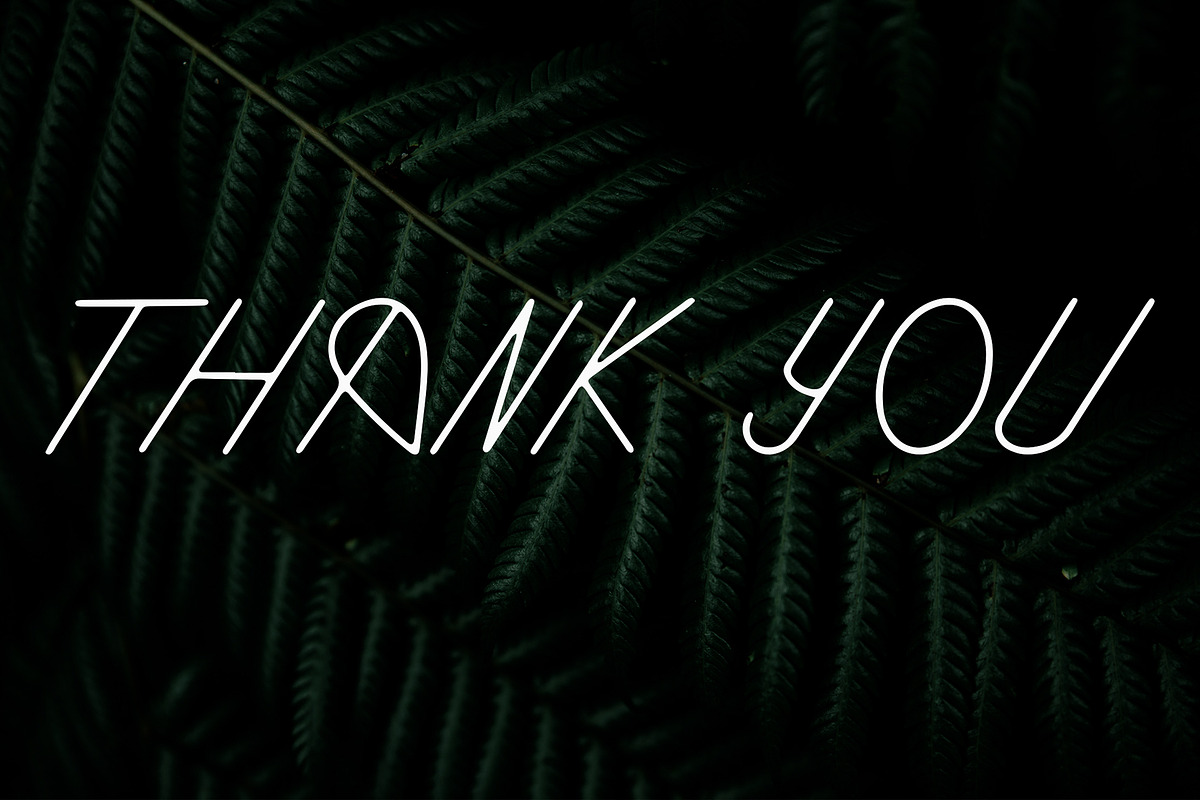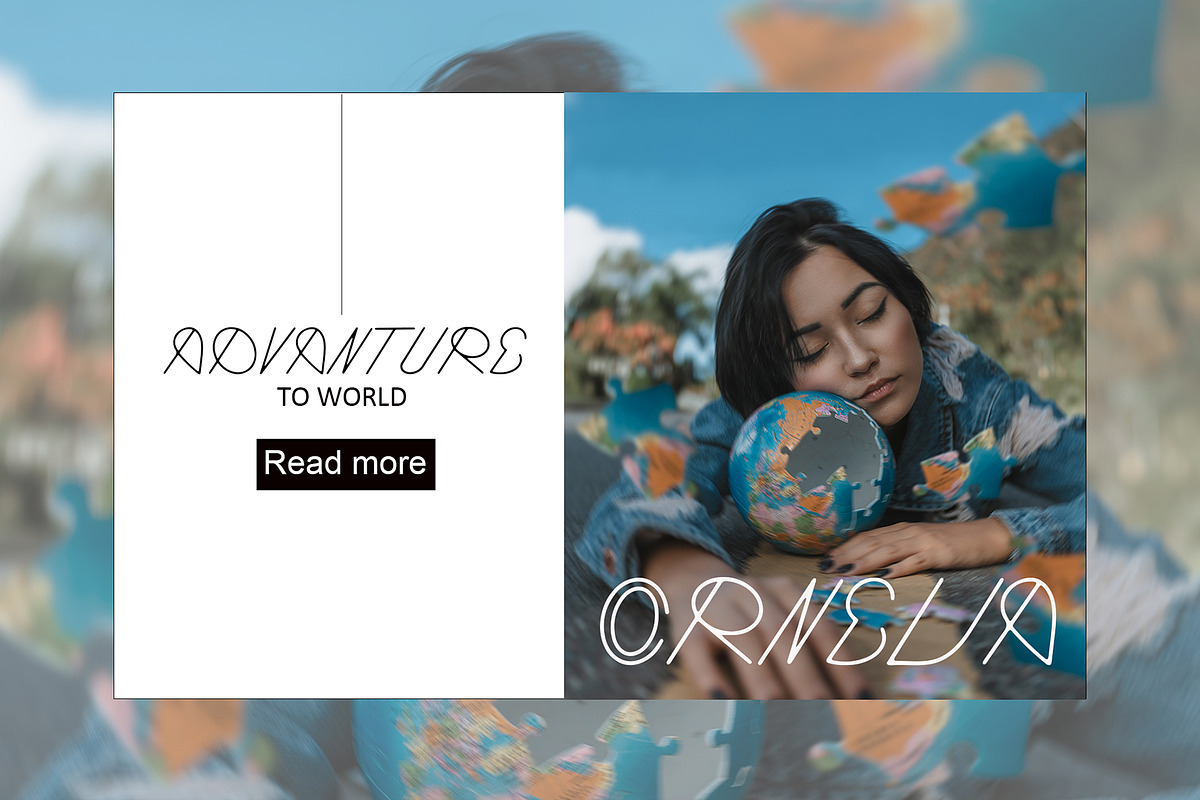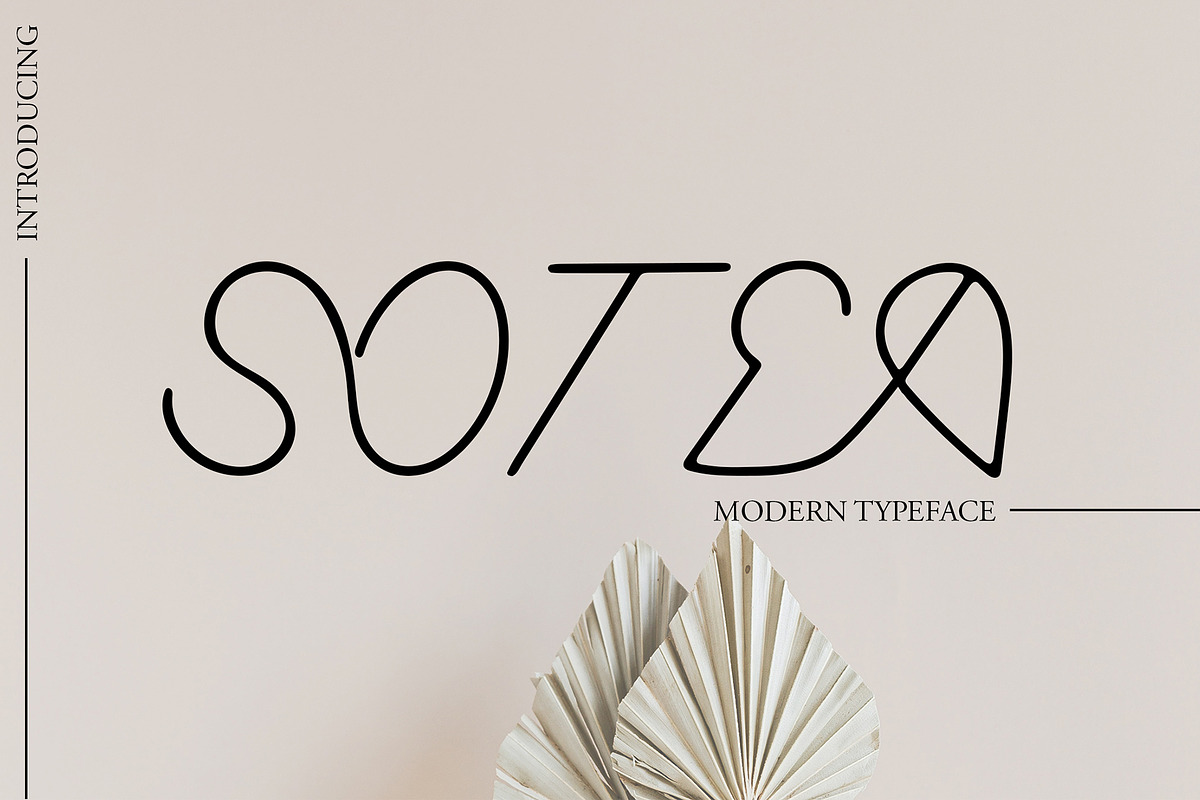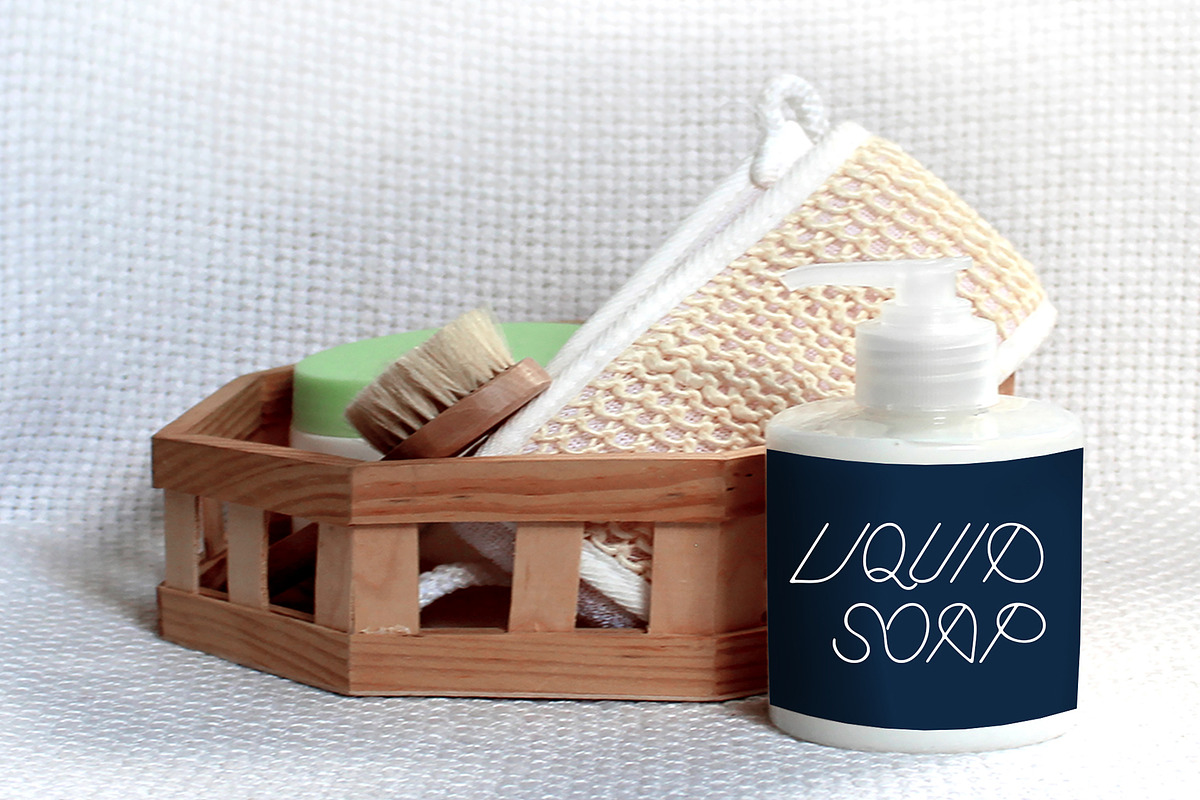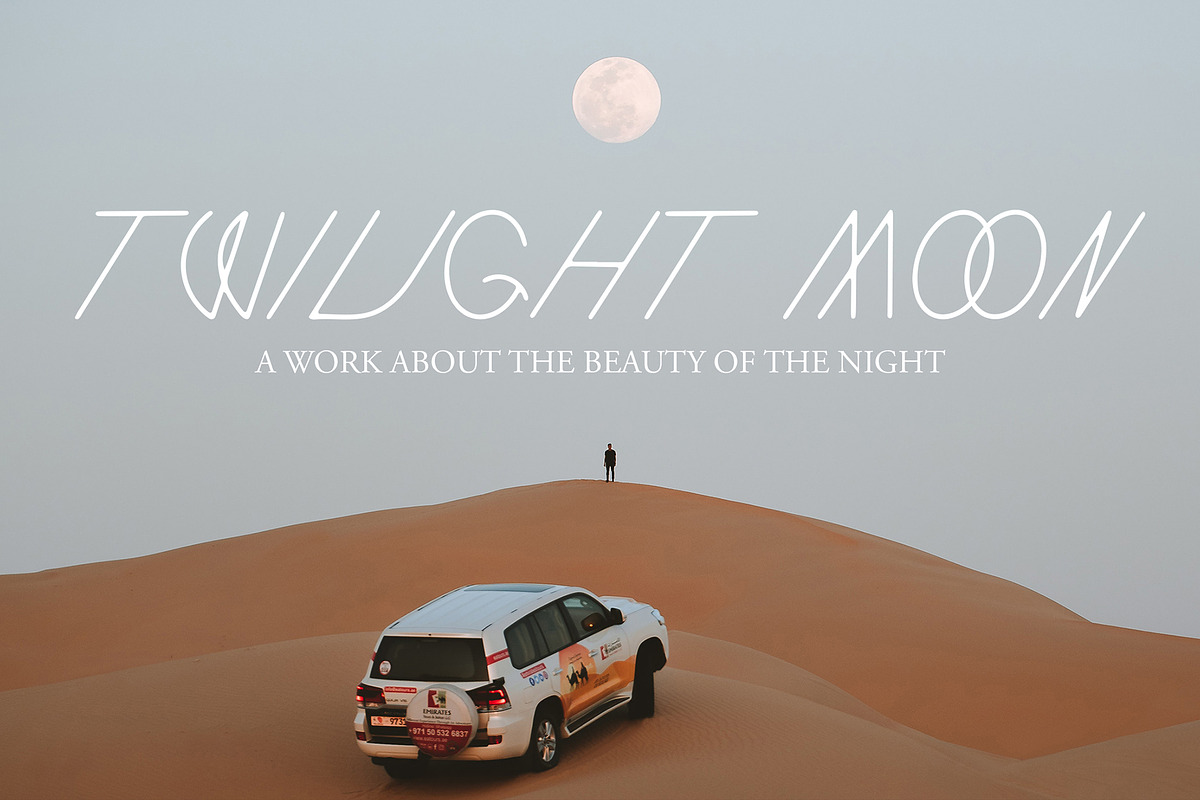
Sotea
Sotea is a minimal and thin lettered sans serif font. It can easily be matched to an incredibly large set of projects, so add it to your creative ideas and notice how it makes them stand out!